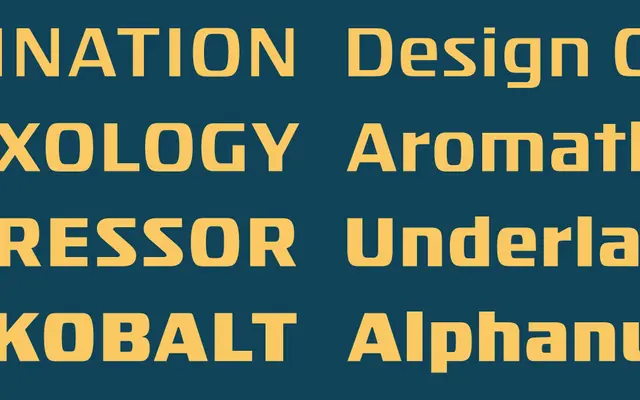
Isotope
Hoefler & Co · Jonathan Hoefler and the H&Co Design Studio · 2014
Isotope specimen from Hoefler & Co
A square-shouldered display sans with an industrial and athletic edge, built for headlines, sports identities and technical work.
A square sans by Jonathan Hoefler and the H&Co studio, drawn with squared curves and tight terminals that recall stencilled industrial lettering, sports kit numbering and instrumentation. Five weights with italics give a compact display family for headlines, packaging and identity work where Knockout would feel too newspaper and Gotham too neutral.
A square-shouldered display sans inspired by industrial and athletic lettering, drawn with squared curves and a technical edge for headlines, kits and packaging.